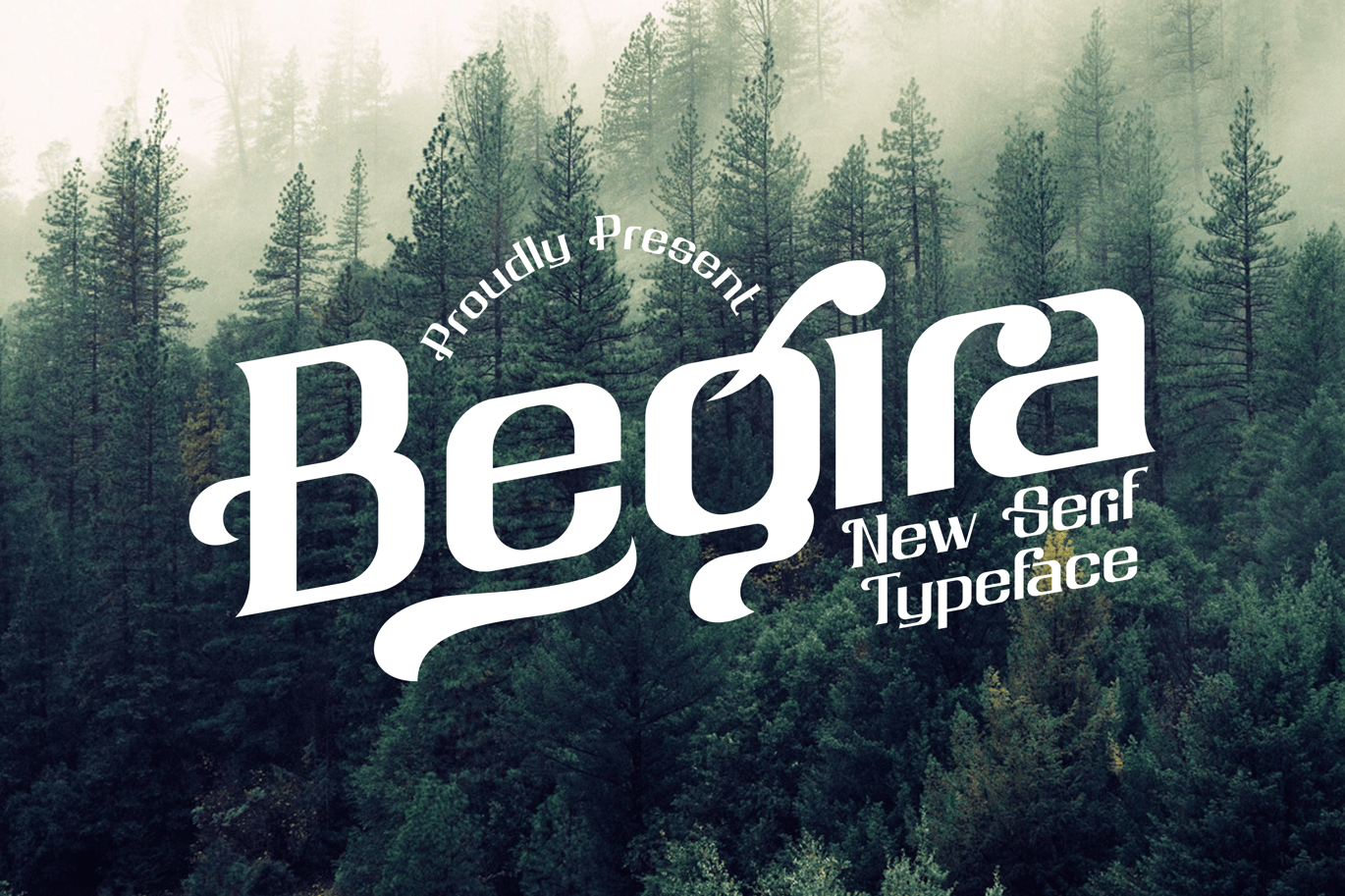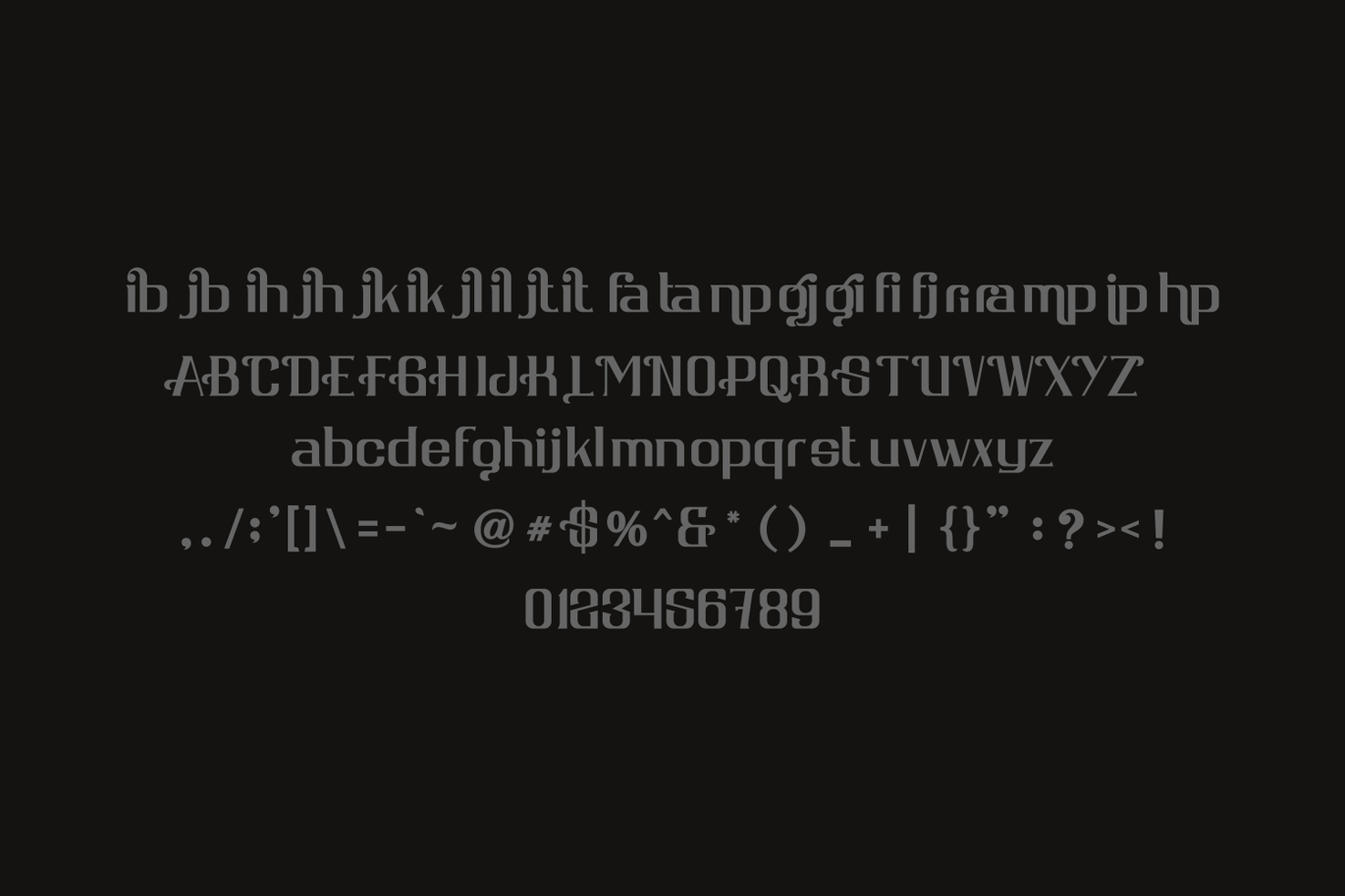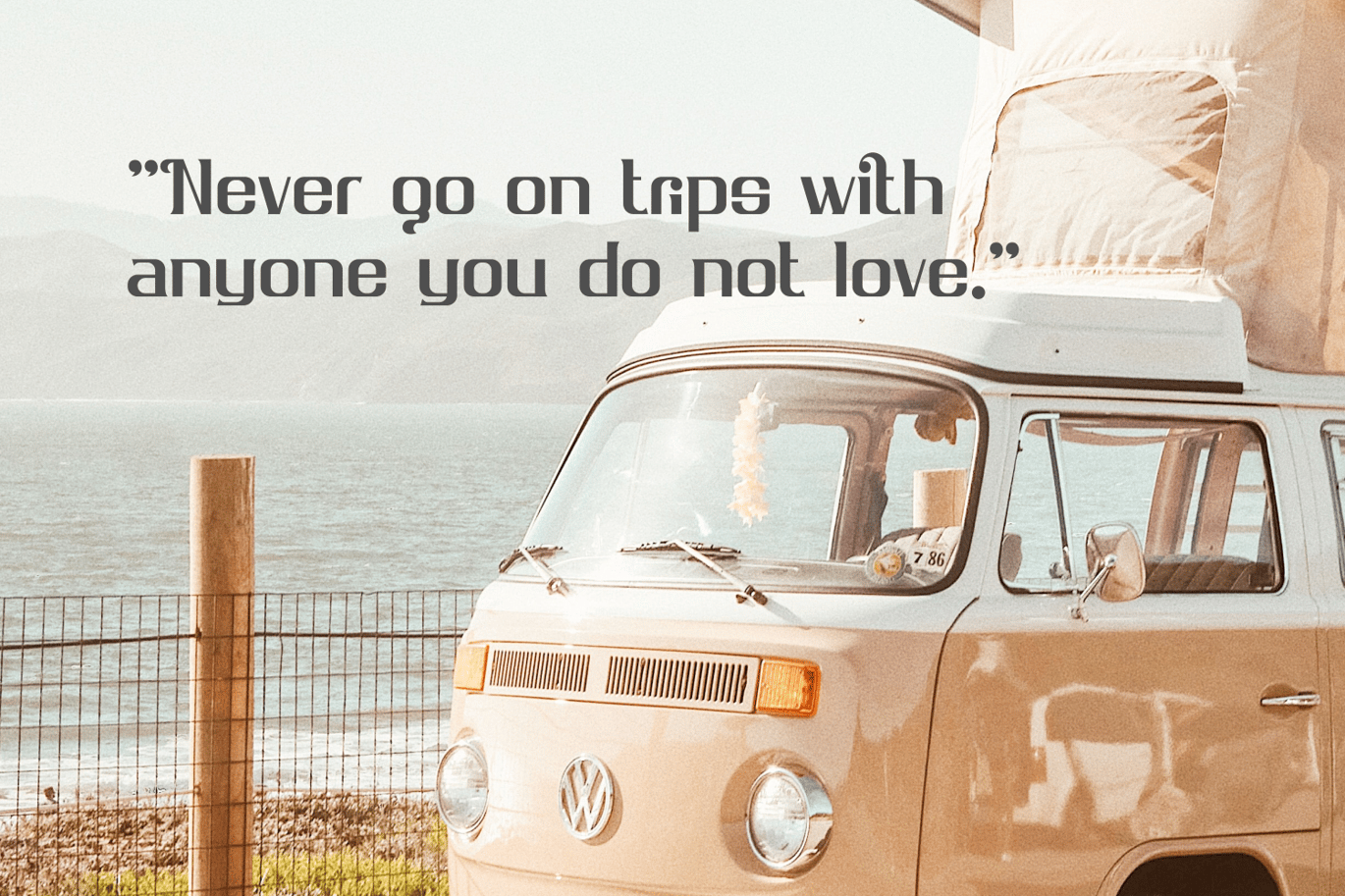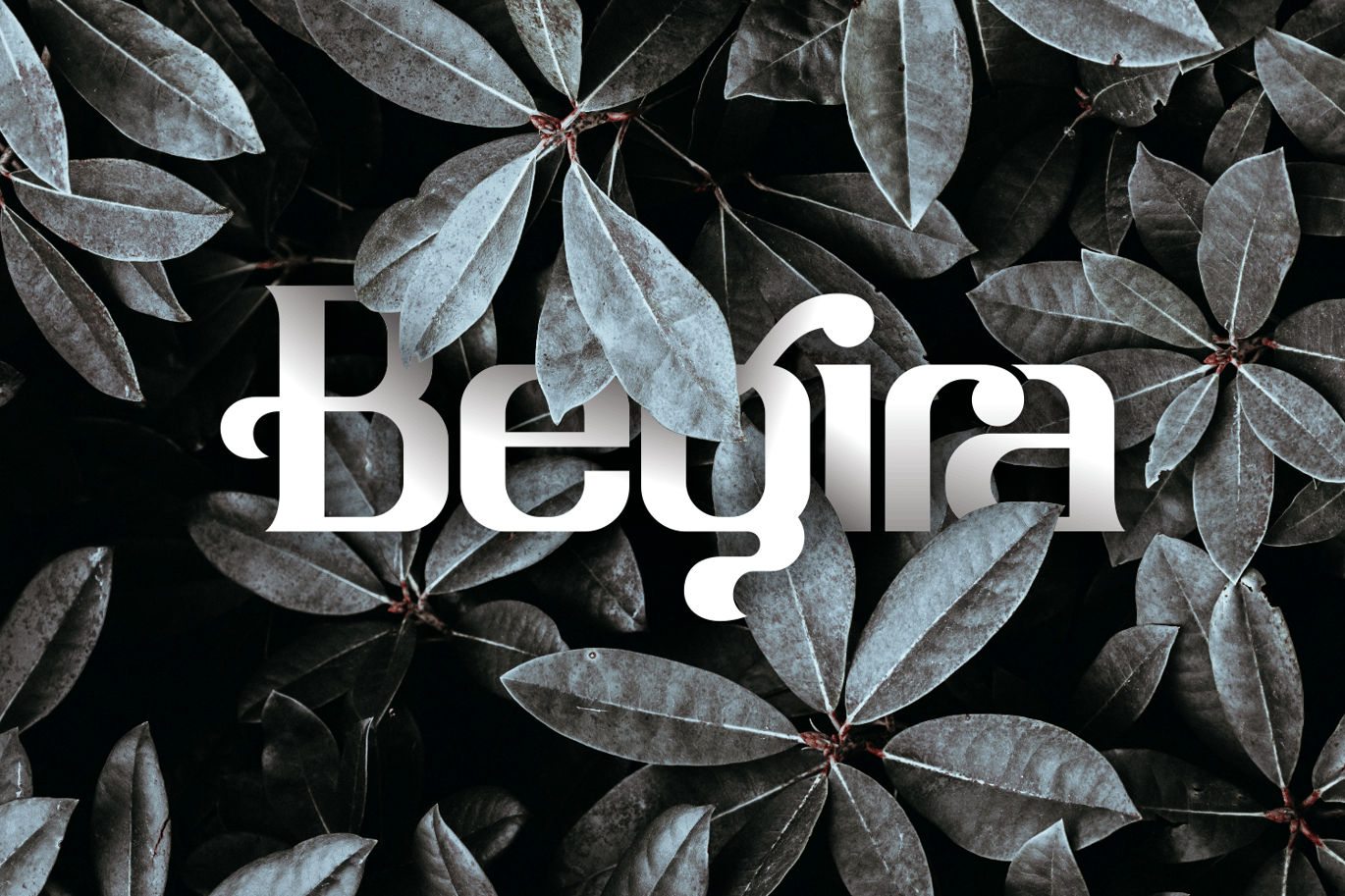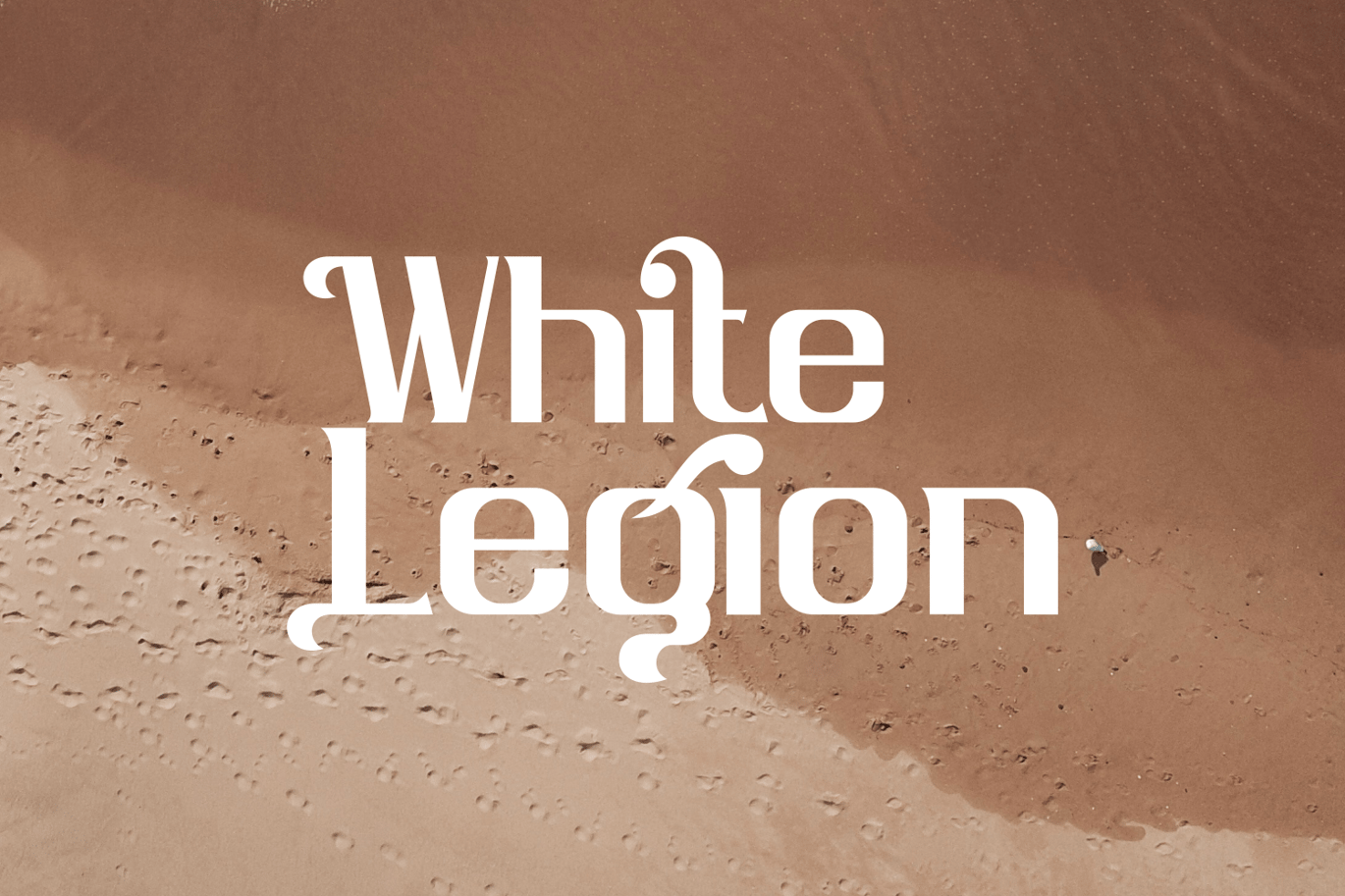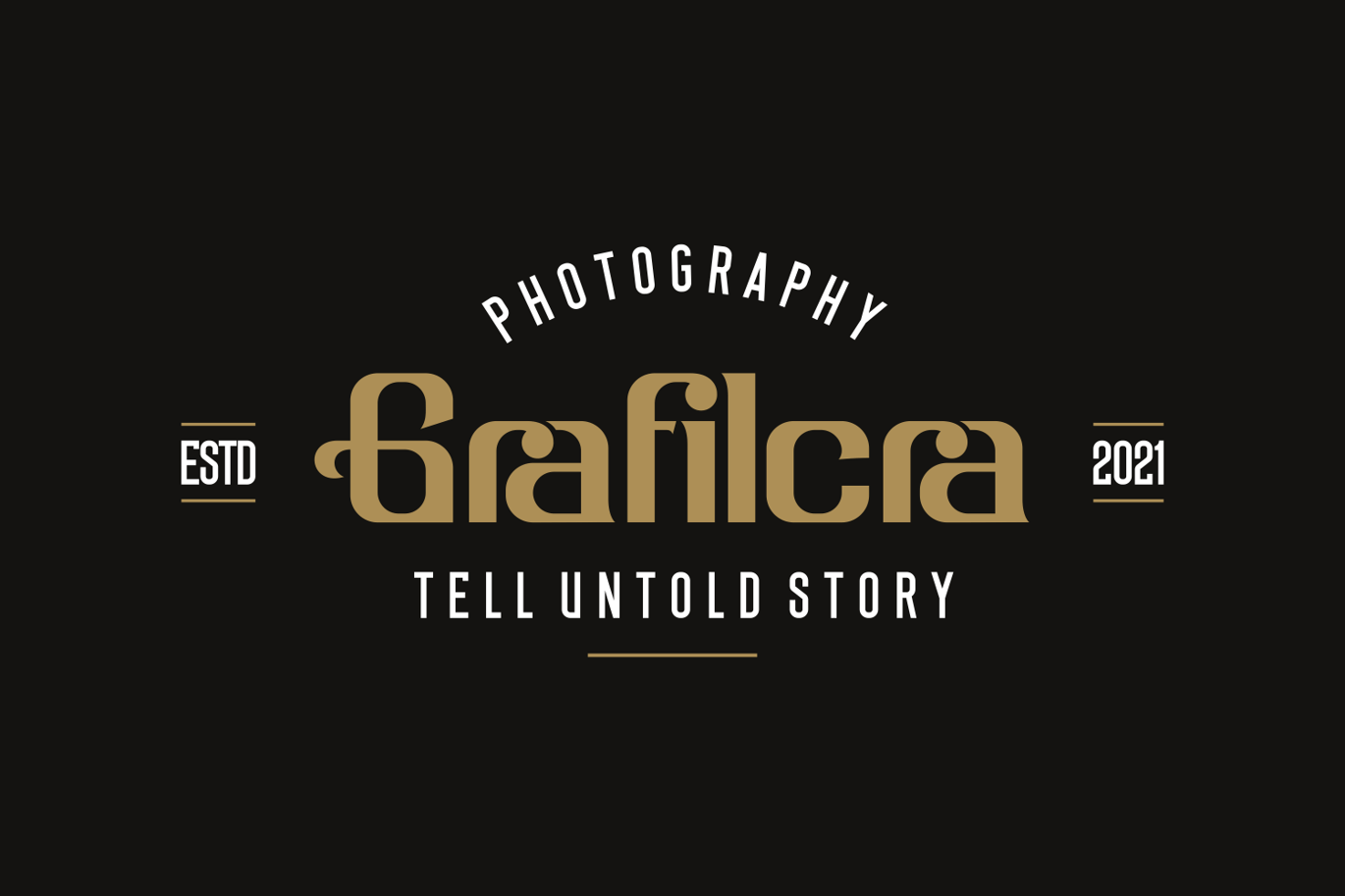
Begira Font
It is perfect for your up coming projects. Such as modern design, branding, stationery design, blog design, modern advertising design, card invitation, art quote, home decor, book/cover title, special events ( wedding, birthday, etc ), and any more modern elegant design.